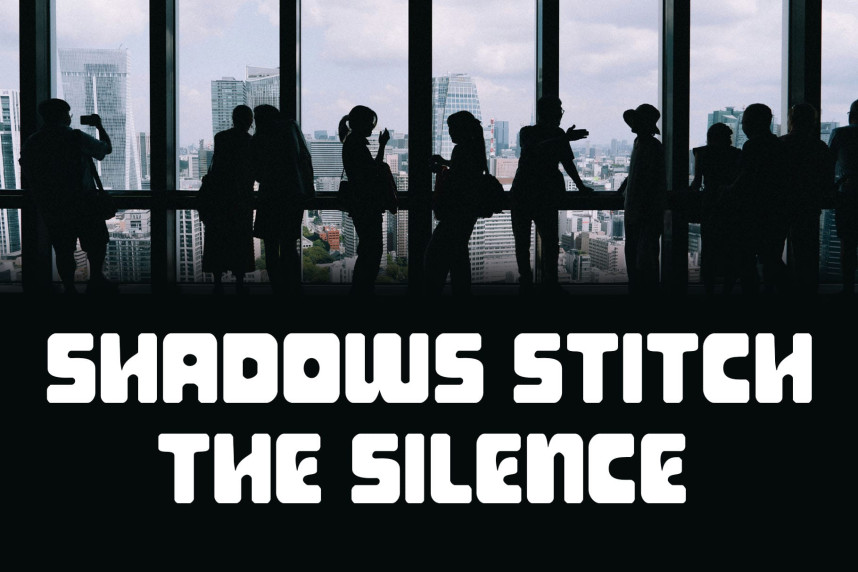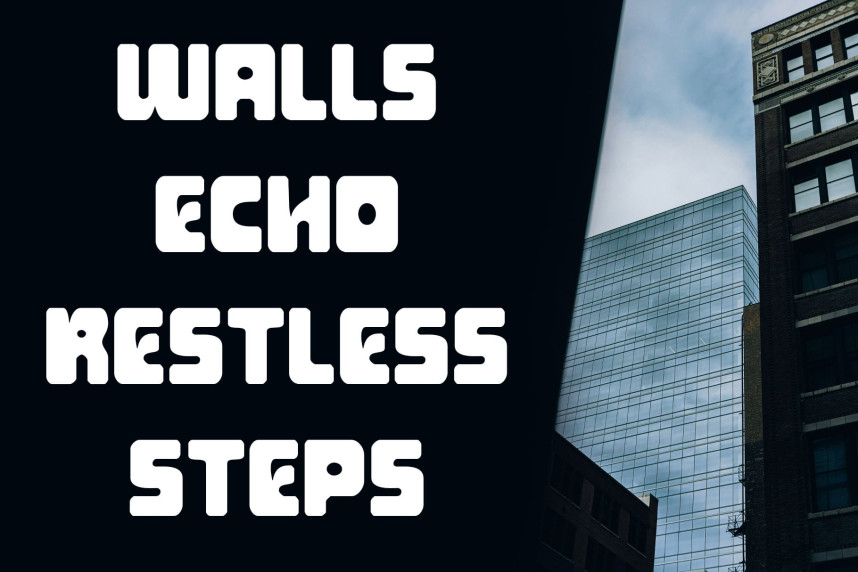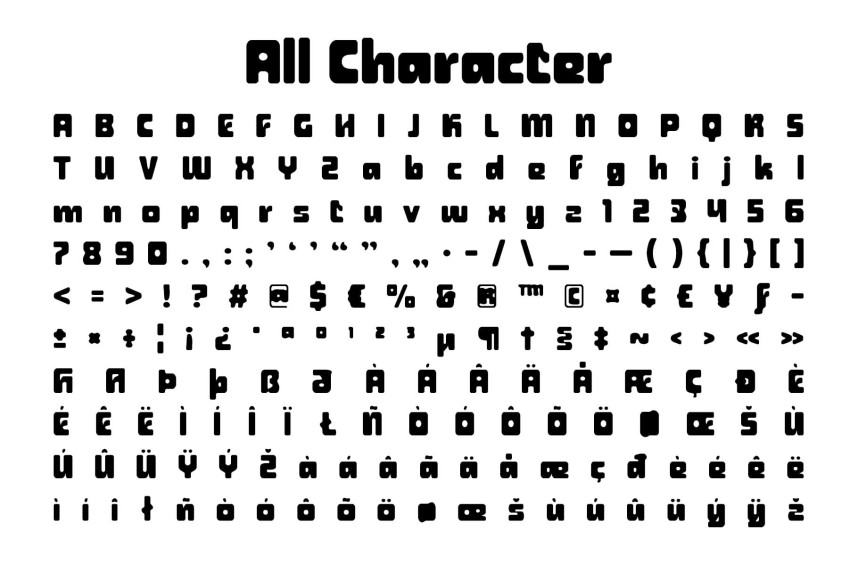
CS Randy Drawn Font
CS Randy Drawn Font – this is a bold sans serif display font that thrives on strength and clarity. Its strong, clean shapes provide a commanding presence, ensuring that every word captures attention with confidence and impact.
What makes this font distinctive is its funky edge paired with a drawn texture. This handmade detail infuses the font with expressive character, softening its sharpness and adding a unique futuristic twist that feels both modern and artistic. From bold headlines and eye-catching posters to standout branding, this font adapts with ease. Its powerful form ensures readability while its textured personality elevates designs beyond the ordinary, making it suitable for creative campaigns and experimental visuals.